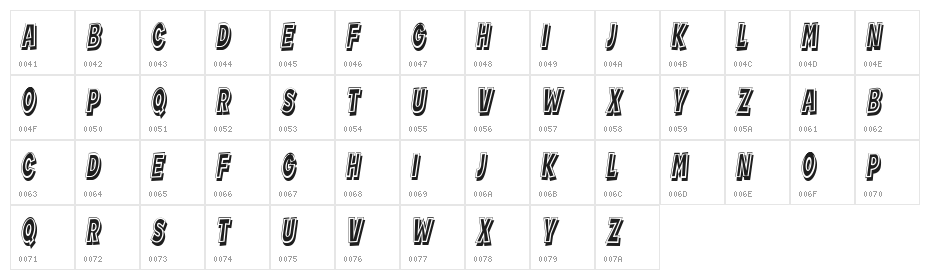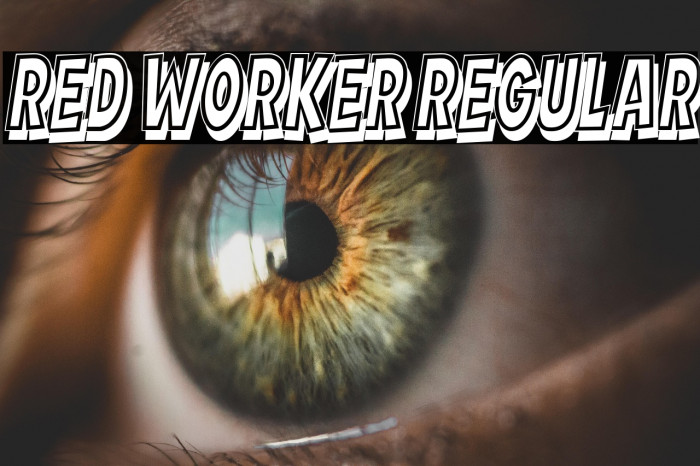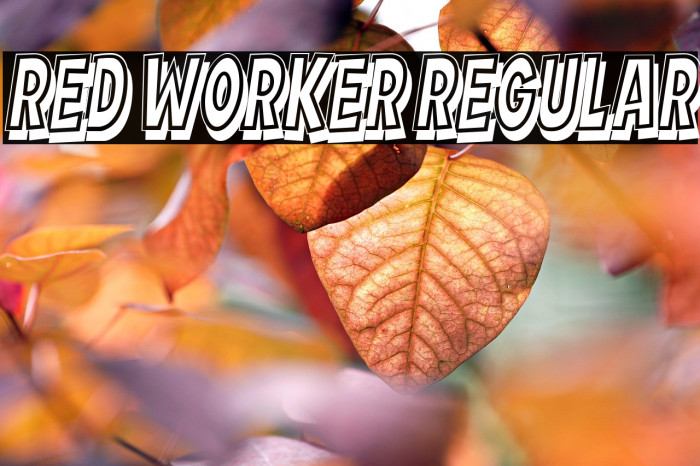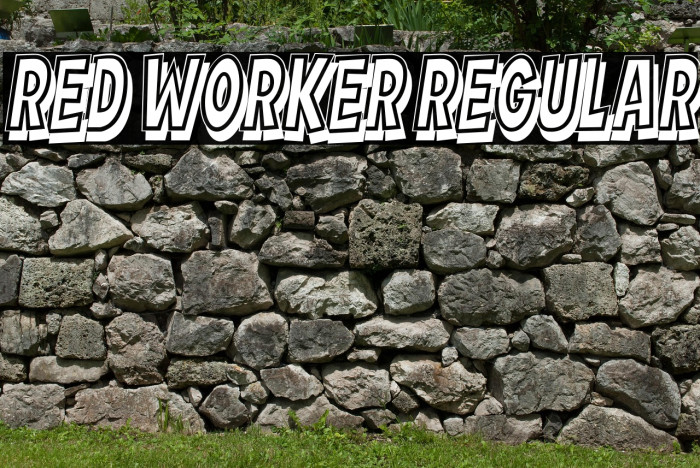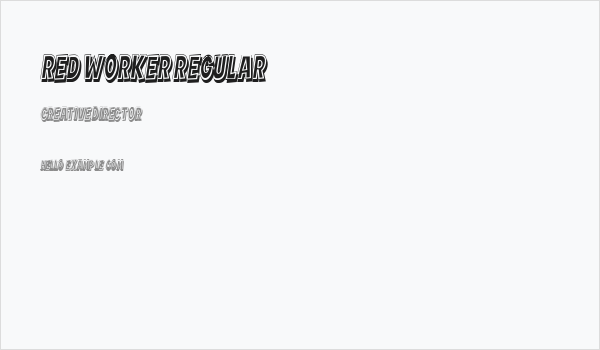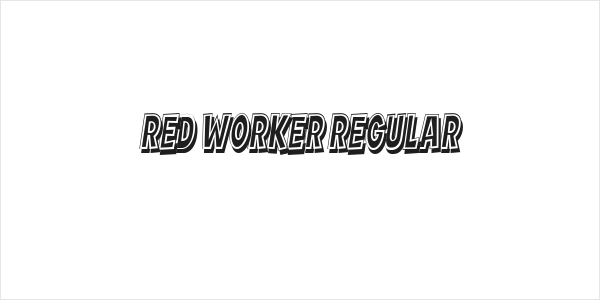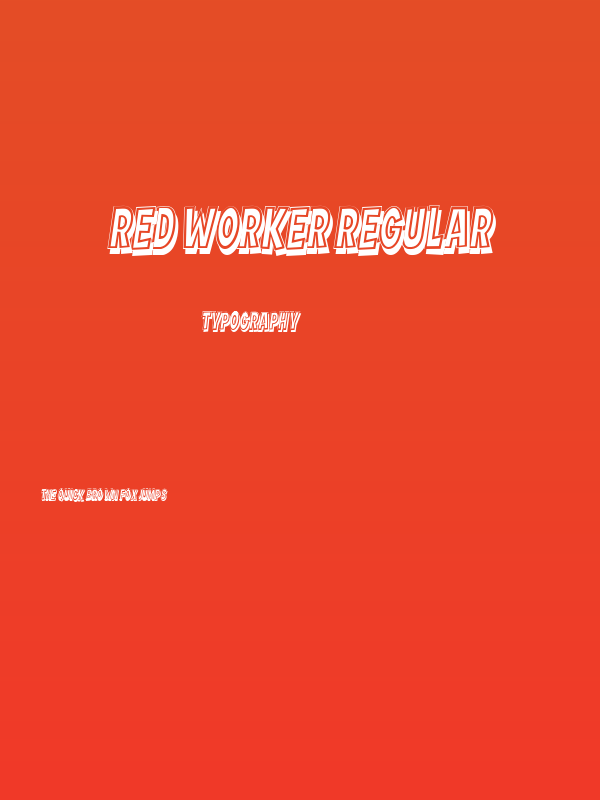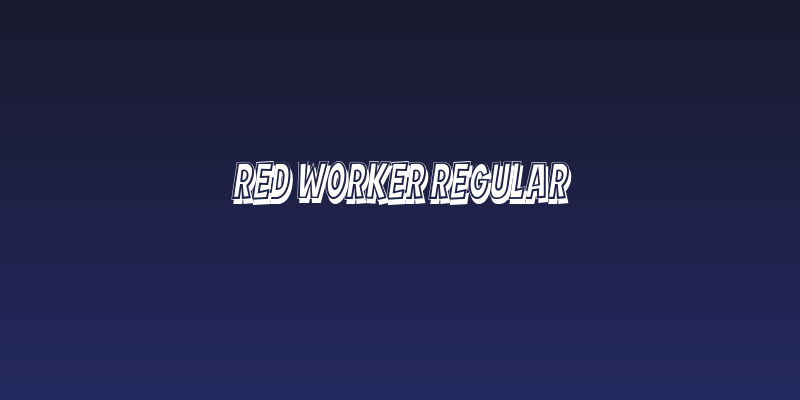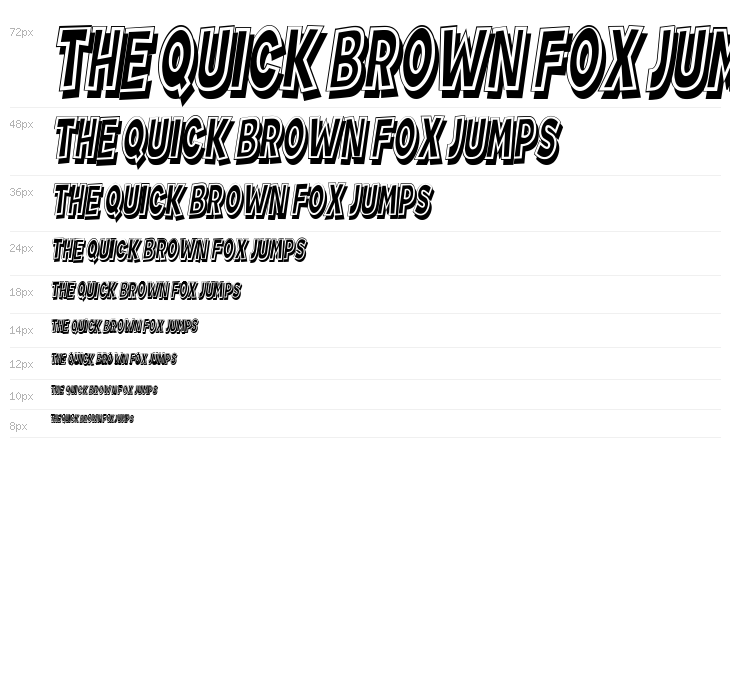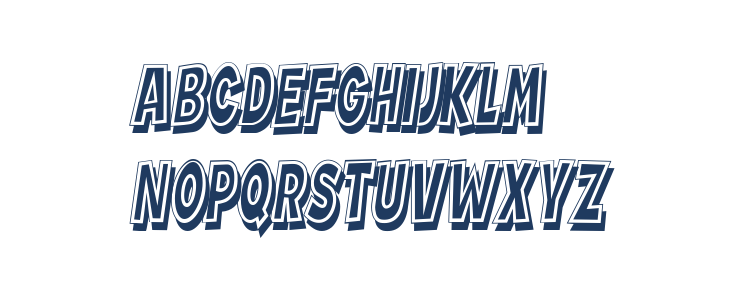
Red Worker Regular Font
Red Worker Regular Description
This font features a bold, dynamic style with a strong 3D effect, achieved through a thick black shadow that gives each character a sense of depth and movement. The uppercase letters are designed with sharp, angular lines, creating a sense of urgency and energy. The font's boldness is complemented by a slight slant, adding to its dynamic appearance. The characters are tightly spaced, enhancing the compact and impactful look. This font is ideal for making a statement, with its high contrast and eye-catching design.